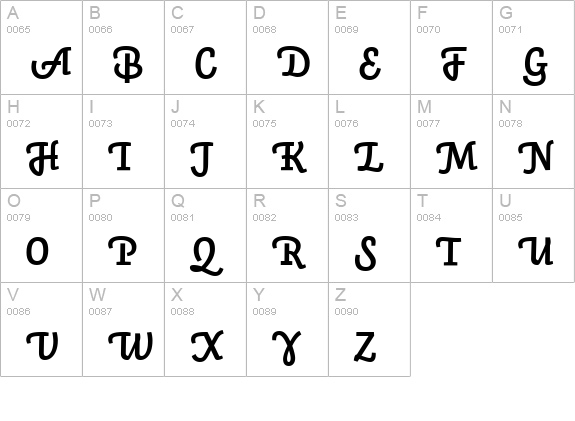
Auto 3 Bold Italic Font Details
Auto 3 Bold Italic is a strong, high-contrast, italic variant in the Auto typeface family \xE2\x80\x94 well suited to headlines, attention-grabbing titles, and strong calls-to-action.
Introducing Auto 3 Bold Italic font - a dynamic and modern typeface designed to make a bold statement. This font exudes confidence and sophistication with its sleek lines and distinctive italic styling. The Auto 3 Bold Italic font is perfect for creating eye-catching titles, headers, and branding materials that demand attention. Best of all, this striking font is available for free download at FontsMarket.com. Whether you're working on a design project or simply looking to elevate your text, the Auto 3 Bold Italic font is a versatile choice that will add a touch of elegance to any piece. Don't miss out on this opportunity to enhance your creations with this unique and stylish font. Download Auto 3 Bold Italic today and let your creativity shine.